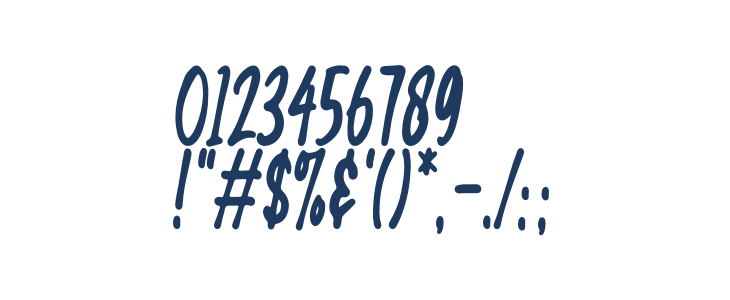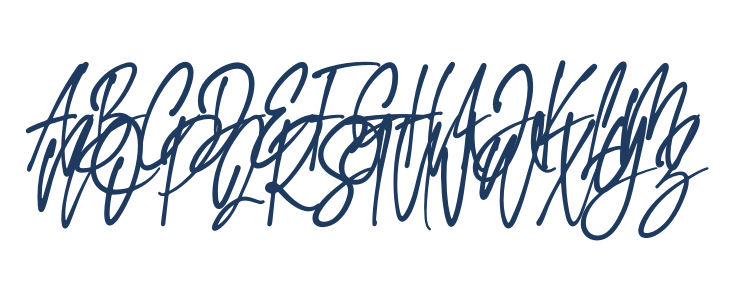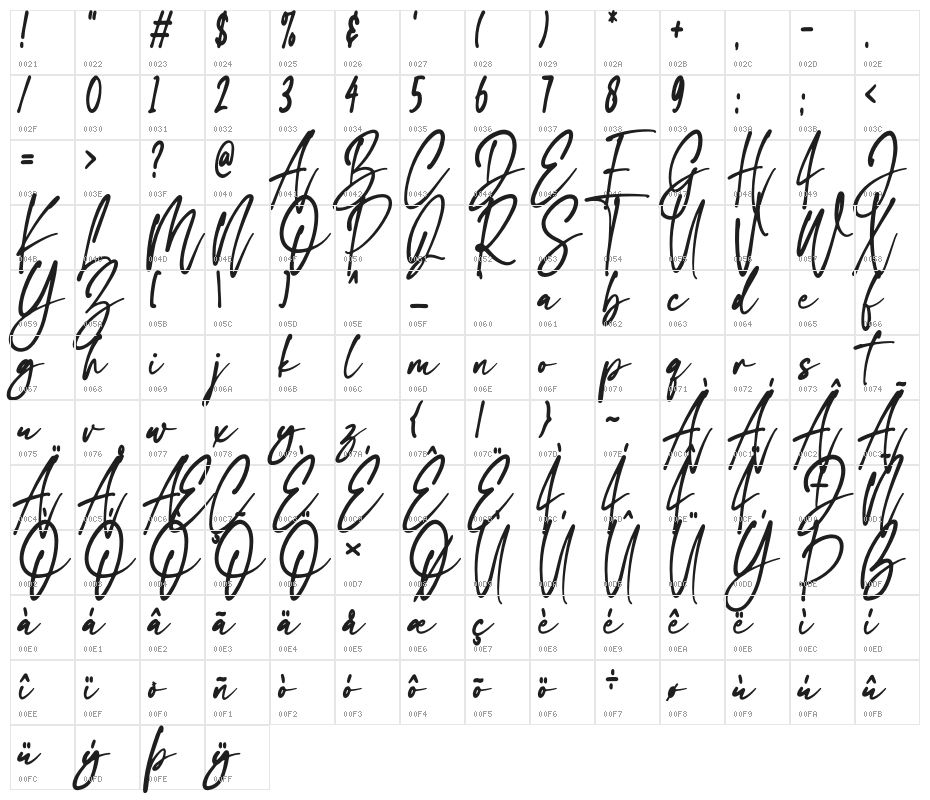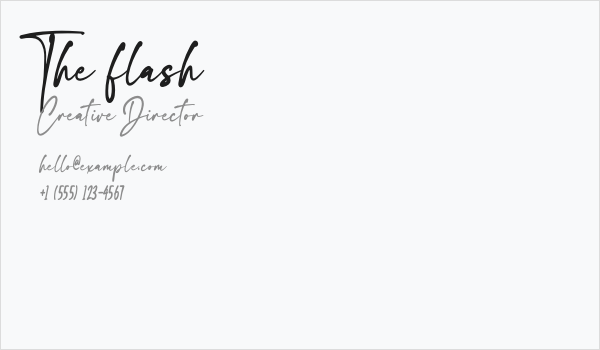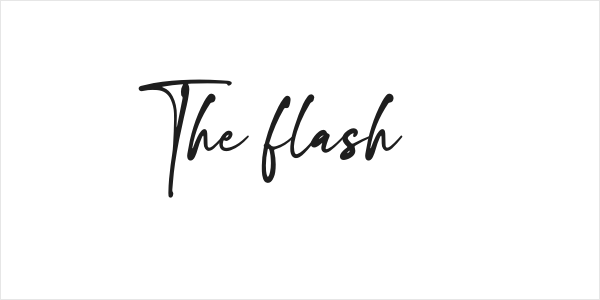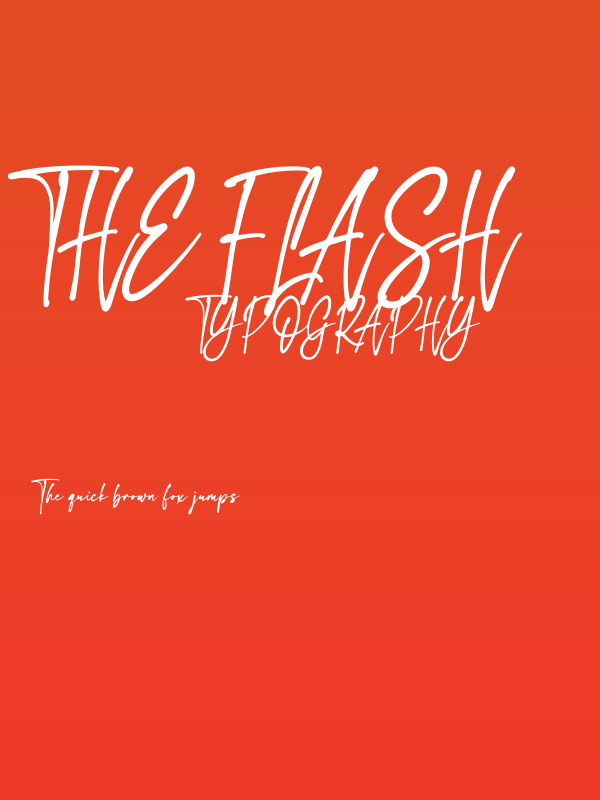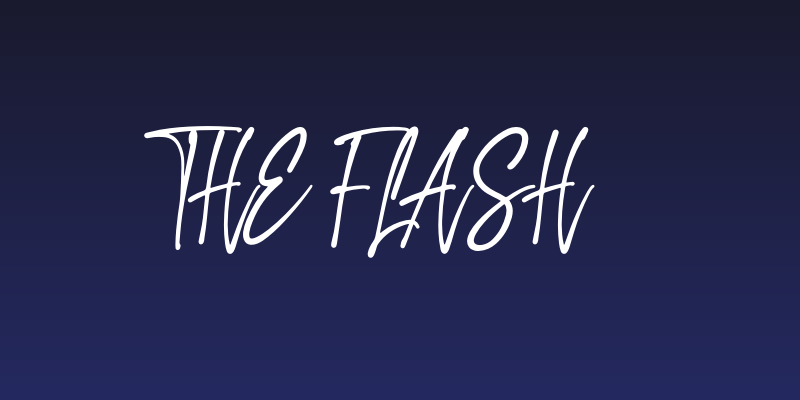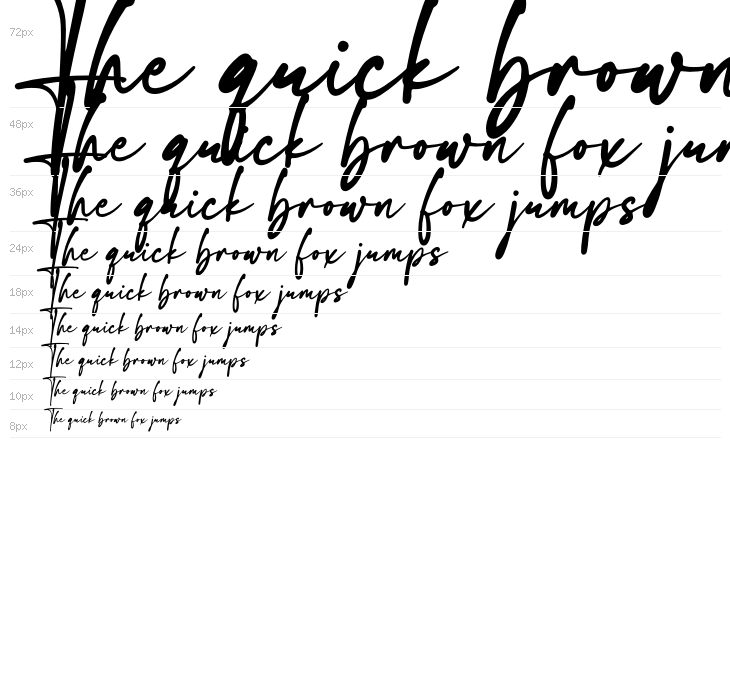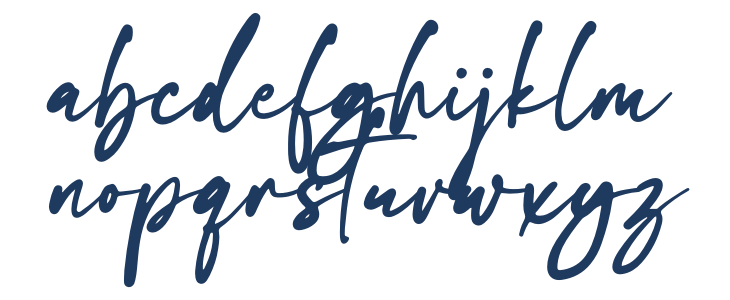
The flash Font
The flash Description
A dynamic, energetic script font with a handwritten appearance, featuring tall, narrow letterforms and dramatic ascenders and descenders. The strokes are fluid and slightly irregular, giving a sense of motion and personality. Numbers and symbols match the expressive style of the letters.
| Width | Condensed |
| Overall Style | Decorative, Modern, Energetic |
| Use Case | Headlines, Logos, Posters, Invitations |
| Proposed Projects | Posters, branding, social media graphics, invitations, expressive headlines. |